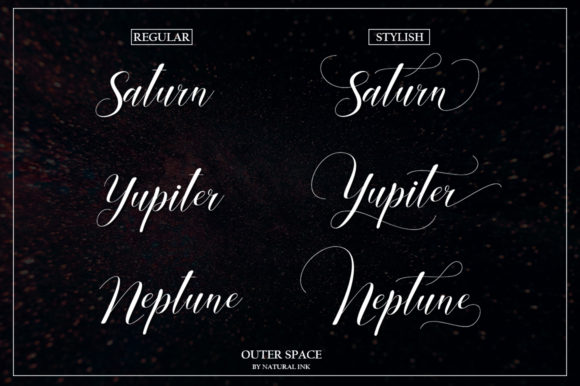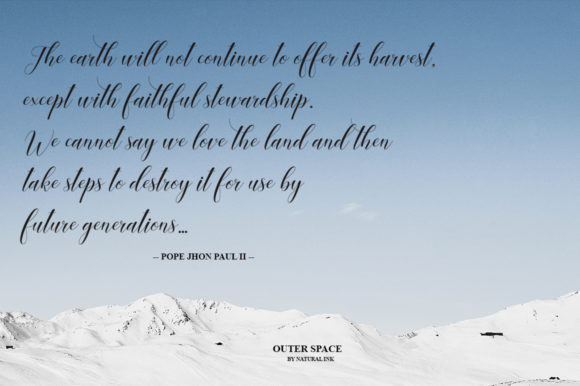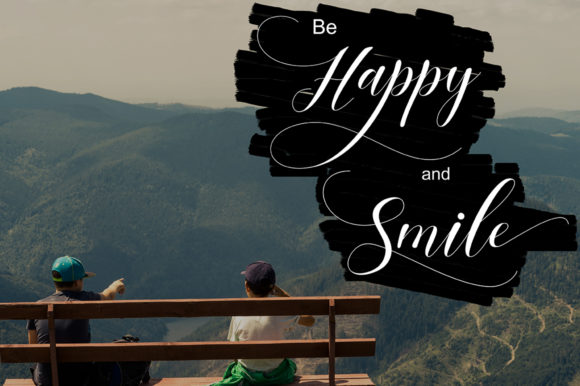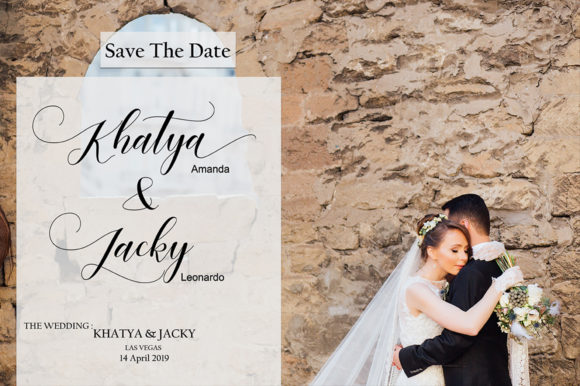
Glitter Script Font
About Glitter Script Font
Glitter is a sophisticated and unique handwritten font with bold swashes. It will turn any design project into a stand out.